I disabled font hinting in Gnome tweaks, but Firefox sometimes (for certain fonts I think) ignores that and tries to align glyphs to pixel grid, resulting in uneven spacing between letters and/or distorted glyphs. I'd like to force Firefox to never use hinting, if possible, are there ways to do so?
Font settings in Gnome tweaks:
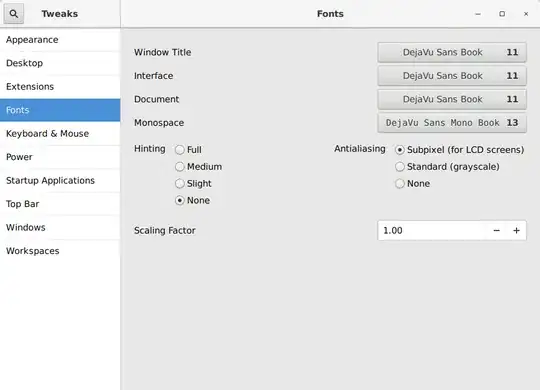
An example of bad font rendering (this is a line from gmail web interface where it shows the list of threads; there are extra spaces between letters in some places where they should not be, in particular "release" reads as "relea se"):
Same line after changing the zoom a bit (see how the bogus spaces are in different positions):
I tried to change font hinting by moving fontconfig files as described here https://askubuntu.com/a/29834/351113 (but used the /etc/fonts/conf.avail/10-hinting-none.conf as the source, of course) and it didn't solve this issue (after clearing Firefox cache and reboot)
Just to check it with something really obvious, I tried to disable font antialiasing in Gnome tweaks (which makes fonts obviously hideous) and it doesn't change font appearance in Firefox, so I'm pretty sure Firefox ignores Gnome font settings.
Creating ~/.fonts.conf with the appropriate contents also had no effect in Firefox.
As suggested in comments, I tried Firefox ESR and it is affected too.